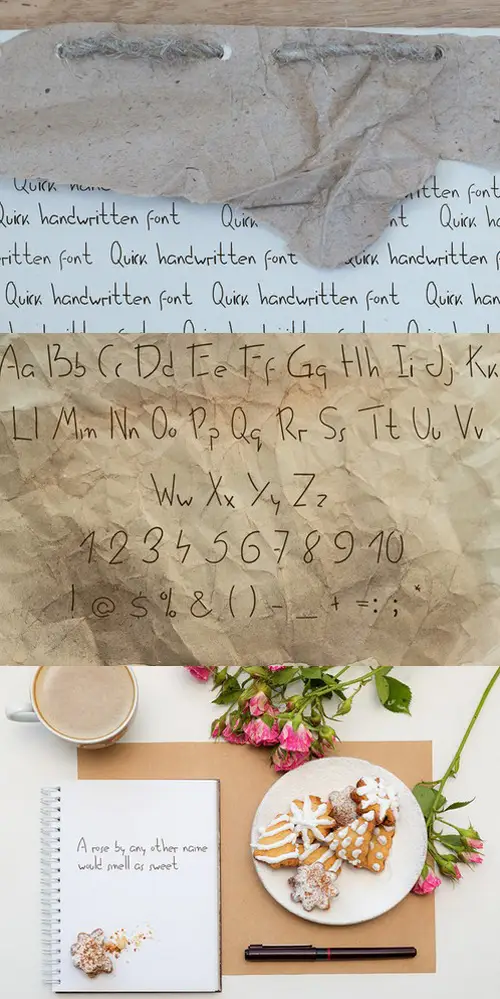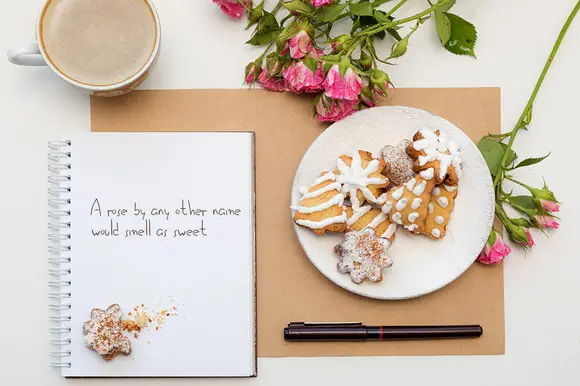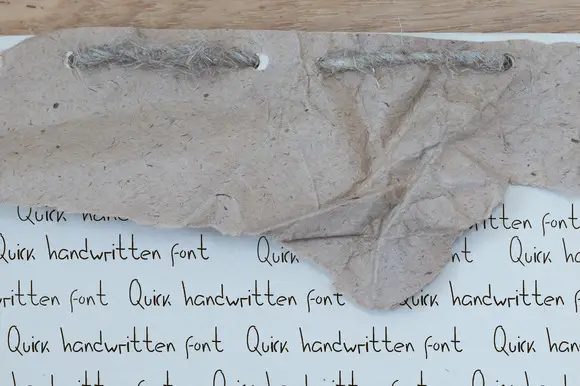
Quick Handwritten Font
The Quick Handwritten Font is a charming and versatile typeface that captures the essence of natural handwriting. Perfect for adding a personal touch to your designs, this font is ideal for branding, logos, web content, and print materials.
• Unique handwritten style
Utilize the Quick Handwritten Font for invitations, social media graphics, and any project that requires a warm, approachable aesthetic.